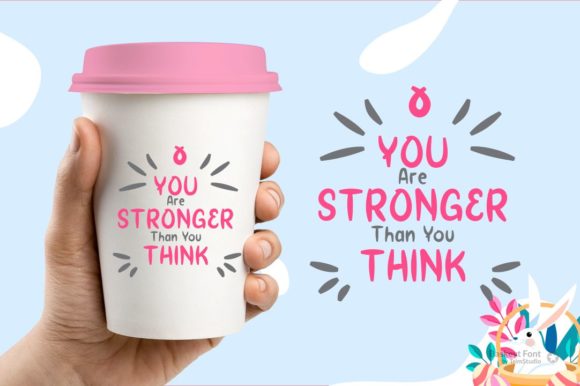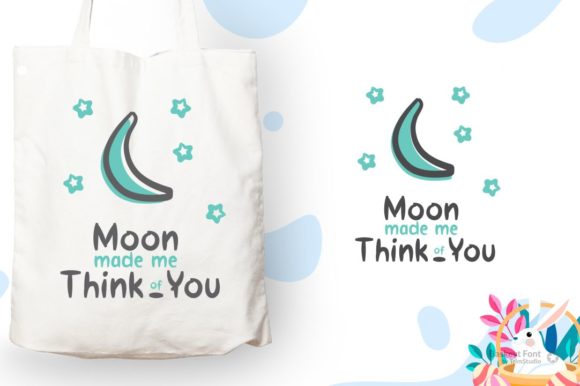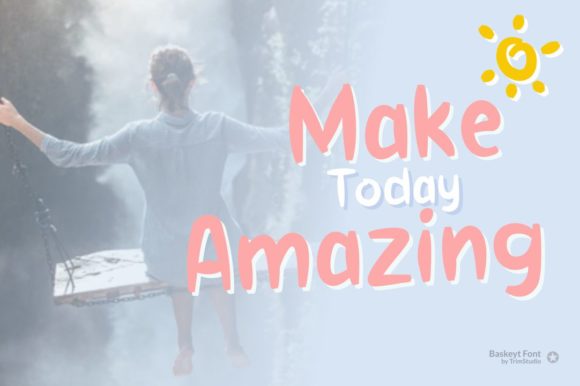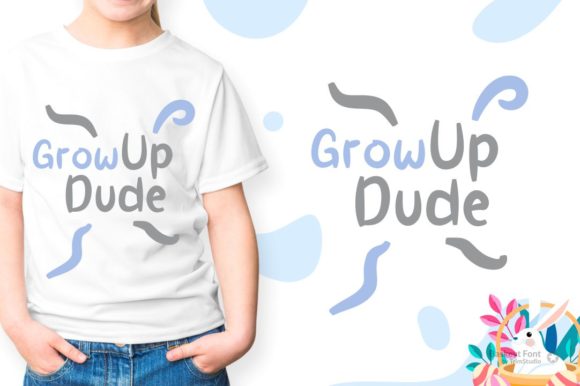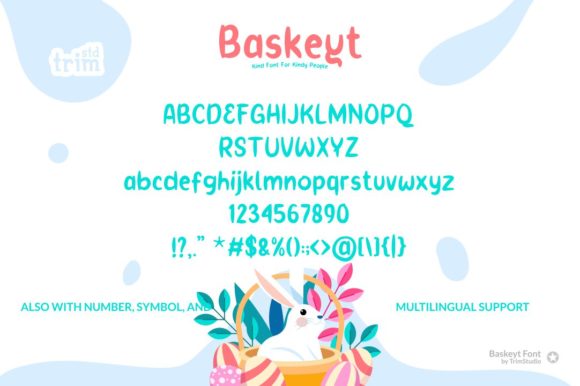
Discover the Joy of Baskeyt Font
Have you ever been browsing through a design platform, scrolling through fonts, and suddenly, you stumble upon a font that instantly captures your attention? For me, that moment happened when I first laid eyes on the adorable Baskeyt Font. Its playful and friendly vibe immediately sparked a sense of creativity and curiosity.
Baskeyt Font is a unique display font designed to add a touch of whimsy to your designs. With its charming style, it’s perfect for creating eye-catching headings, titles, and quotes that will leave a lasting impression on your audience. As a designer, you’ll appreciate the versatility of Baskeyt Font, which can be used in a variety of projects, from digital designs to print materials.
Basket Font Key Features
- Font Family: Basket
- Unique Characteristic: The Basket font features a unique, hand-drawn design with a sporty and casual feel, making it suitable for use in logos, branding, and advertising materials
Baskeyt Font Review
I recently had the chance to work with Baskeyt Font, and I must say it’s an interesting combination of elegance and playfulness. ✨ The font’s unique design elements, such as the curved lines and dynamic shapes, give it a modern feel that’s perfect for contemporary designs.
The font’s versatility is one of its strongest points. ✨ It can be used for a wide range of applications, from logos and branding to digital displays and print materials. I particularly enjoyed using it for headings and titles, where its bold and eye-catching personality really shines.
While Baskeyt Font has many strengths, there are a few areas where it falls short. ⚠️ For one, the font can be a bit difficult to read in certain contexts, particularly at smaller font sizes. Additionally, the font’s unique design elements can sometimes feel overwhelming or even chaotic, which may not be suitable for every project.
- Limited legibility at smaller font sizes
- Can feel overwhelming or chaotic in certain contexts
Overall, I think Baskeyt Font is a solid choice for designers looking for a modern and attention-grabbing font. While it may not be suitable for every project, it’s a great option for those who want to add a touch of excitement and energy to their designs. With a bit of caution and consideration, Baskeyt Font can be a valuable addition to any designer’s toolkit.
The Baskeyt Font is ideal for creative and playful designs. Use it for:
- Children’s book covers and illustrations
- Food and drink branding
- Wedding invitations and decorations
Alternatives to Baskeyt Font
Baskeyt Font is a sans-serif font known for its modern and clean appearance. However, designers may look for alternatives that offer similar features or unique characteristics. Here are a few options:
Open Sans is a popular sans-serif font that is highly legible and versatile. It is suitable for body text, headings, and titles. Open Sans is a good alternative to Baskeyt Font when you need a clean and modern font that is also highly readable.
Comparison to Baskeyt Font: Open Sans is more rounded and friendly compared to Baskeyt Font’s geometric shape. Open Sans is also more versatile and can be used in a wide range of contexts.
Lato is a sans-serif font that is highly legible and elegant. It is suitable for body text, headings, and titles. Lato is a good alternative to Baskeyt Font when you need a font that is both modern and sophisticated.
Comparison to Baskeyt Font: Lato is more refined and elegant compared to Baskeyt Font’s geometric shape. Lato is also more suitable for formal contexts and can add a touch of sophistication to your design.
Montserrat is a sans-serif font that is highly legible and urban. It is suitable for body text, headings, and titles. Montserrat is a good alternative to Baskeyt Font when you need a font that is both modern and gritty.
Comparison to Baskeyt Font: Montserrat is more urban and gritty compared to Baskeyt Font’s clean appearance. Montserrat is also more suitable for contexts that require a bold and edgy font.